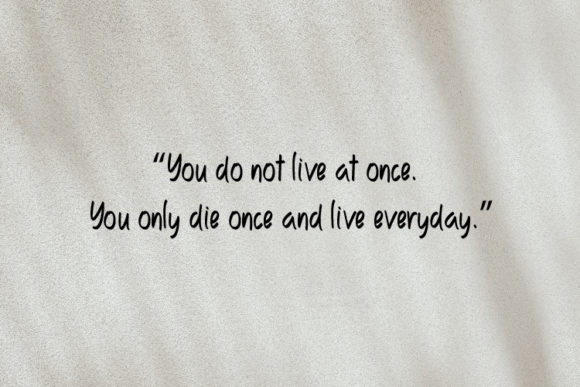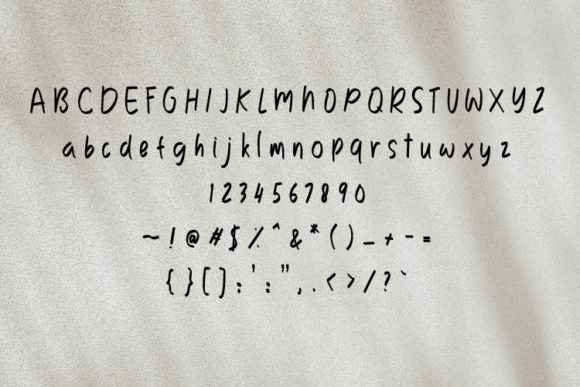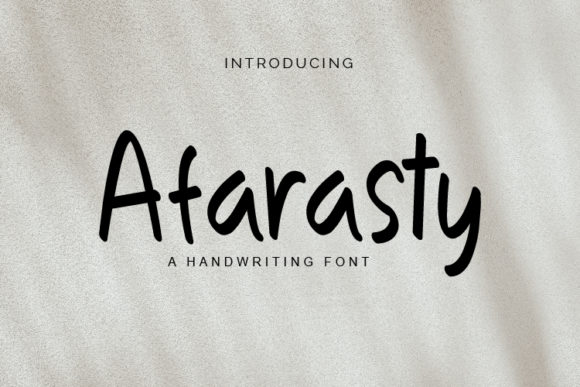
Afrasty Font: Unleash Your Creativity with a Unique Handwritten Style
In the world of typography, fonts play a crucial role in conveying the tone and personality of a brand, product, or project. For designers, crafters, and DIY enthusiasts, finding the perfect font can be a daunting task. However, if you’re looking for a font that embodies fun, quirkiness, and authenticity, look no further than Afrasty Font. In this article, we’ll explore the unique features of Afrasty Font and how it can elevate your creative projects.
The Charm of Afrasty Font
Afrasty Font is a one-of-a-kind handwritten font that exudes playfulness and character. Its distinctive style makes it perfect for adding a personal touch to any DIY project, whether it’s a craft, a sign, or a digital design. With Afrasty Font, you can create eye-catching headlines, engaging captions, or even entire stories that capture the imagination of your audience.
One of the standout features of Afrasty Font is its versatility. Whether you’re working on a busy background or using it as a standalone headline, Afrasty Font looks outstanding in any context. Its unique style allows it to cut through the noise and grab attention, making it perfect for a wide range of applications, from crafting and scrapbooking to digital design and marketing.
Bring Your DIY Projects to Life
For crafters and DIY enthusiasts, Afrasty Font is a dream come true. With this font, you can add a personal touch to your projects, making them truly special and eye-catching. Imagine creating handmade cards, gift tags, or signs that feature a unique and quirky font that reflects your personality. Afrasty Font makes it easy to add a professional touch to your DIY projects, making them stand out from the crowd.
Authenticity and Quirkiness
Afrasty Font is more than just a font – it’s a statement. Its quirky and authentic style makes it perfect for brands and projects that want to stand out from the crowd. Whether you’re creating a logo, a brochure, or a social media post, Afrasty Font adds a touch of personality that resonates with audiences. Its handmade feel makes it perfect for projects that require a personal touch, such as wedding invitations, party decorations, or children’s party materials.
Tips for Using Afrasty Font
To get the most out of Afrasty Font, here are a few tips to keep in mind:
- Use it sparingly: Afrasty Font is a bold and eye-catching font, so use it sparingly to avoid overwhelming your design.
- Pair it with contrasting fonts: Pair Afrasty Font with clean and simple fonts to create visual interest and contrast.
- Experiment with colors: Afrasty Font looks great in a variety of colors, so don’t be afraid to experiment and find the perfect hue for your project.
Afrasty Font is a game-changer for designers, crafters, and DIY enthusiasts. Its unique blend of fun, quirkiness, and authenticity makes it perfect for adding a personal touch to any project. Whether you’re creating a DIY craft, a digital design, or a marketing campaign, Afrasty Font is sure to make your project stand out. So why not give it a try and unleash your creativity with Afrasty Font?